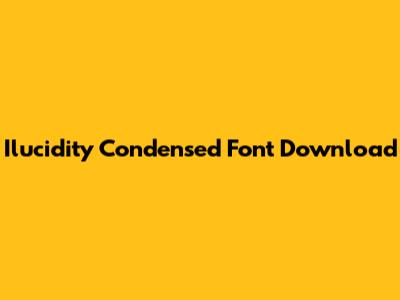
Download Ilucidity Condensed Font: A Sleek Typography Choice
What is Ilucidity Condensed?
Let’s start with the basics. Ilucidity Condensed is a typeface known for its narrow, streamlined design. It's a condensed version, meaning the letters are intentionally compressed horizontally, allowing you to fit more text into a smaller space without sacrificing readability. This makes it an excellent choice for headlines, captions, and other areas where space is at a premium. But what truly sets Ilucidity Condensed apart? It's the font's unique blend of modernity and elegance. The clean lines and minimalist design give it a contemporary feel, while subtle curves and carefully crafted letterforms add a touch of sophistication. This versatility makes it suitable for a wide range of projects, from corporate branding to editorial design.
Imagine you’re designing a sleek, minimalist website for a tech startup. Ilucidity Condensed could be the perfect font for your headings, providing a clean and modern look that aligns with the company's brand. Or perhaps you’re working on a magazine layout and need a font that can fit a lot of text into a narrow column. Ilucidity Condensed would be an ideal choice, allowing you to maintain readability without sacrificing space. Designers love Ilucidity Condensed because it plays well with others. It pairs beautifully with both serif and sans-serif fonts, giving you a lot of flexibility in your design choices. You can use it for headlines and pair it with a classic serif font like Times New Roman for body text, or you can combine it with a more modern sans-serif font like Open Sans for a cohesive and contemporary look. Whether you're a seasoned designer or just starting out, Ilucidity Condensed is a valuable addition to your font library. Its versatility, readability, and modern aesthetic make it a go-to choice for a wide range of projects. Plus, its condensed design can be a lifesaver when you're working with limited space. So, if you're looking for a font that can add a touch of sophistication and modernity to your designs, Ilucidity Condensed is definitely worth checking out.
Key Features and Design Aspects
Okay, so what are the nitty-gritty details that make Ilucidity Condensed stand out? Let’s break down some of its key features and design aspects. First off, the condensed nature of the font is a huge plus. This means you can pack more characters into a line without making the text look cramped or illegible. It’s a lifesaver when you’re dealing with tight spaces or trying to create a visually impactful headline. The font also boasts clean lines and a minimalist design. There aren’t a lot of unnecessary frills or embellishments. This simplicity gives it a modern and professional look, making it suitable for a wide range of applications. Whether you’re designing a corporate brochure, a website, or a mobile app, the clean lines of Ilucidity Condensed will help you create a polished and sophisticated design.
Another important aspect is its readability. Despite being condensed, Ilucidity Condensed maintains excellent readability, even at smaller sizes. This is due to the carefully crafted letterforms and the generous spacing between characters. You won’t have to worry about your audience straining their eyes to read your text. In terms of design, Ilucidity Condensed often features a slightly rounded terminal, giving it a softer and more approachable feel. This subtle detail can make a big difference in the overall look and feel of your design. It prevents the font from feeling too sterile or clinical, adding a touch of warmth and personality. The font also typically includes a variety of weights, from light to bold, giving you even more flexibility in your design choices. You can use the lighter weights for body text and the bolder weights for headlines, creating a clear visual hierarchy. This helps guide the reader's eye and makes your content more engaging.
Many versions of Ilucidity Condensed also come with a full set of glyphs and special characters, allowing you to create designs in multiple languages. This is a huge advantage if you’re working on international projects or need to support a diverse audience. The inclusion of special characters also opens up creative possibilities, allowing you to add unique visual elements to your designs. Let’s not forget about the overall aesthetic. Ilucidity Condensed has a contemporary and stylish look that’s perfect for brands that want to project a modern image. It’s a font that’s both functional and visually appealing, making it a popular choice among designers. Whether you’re designing a website, a logo, or a marketing campaign, Ilucidity Condensed can help you create a design that stands out from the crowd. So, if you’re looking for a font that’s condensed, clean, readable, and stylish, Ilucidity Condensed is definitely worth considering.
Tips for Using Ilucidity Condensed Effectively
Pairing Ilucidity Condensed with other fonts is another key consideration. As I mentioned earlier, it plays well with both serif and sans-serif fonts. For a classic and sophisticated look, try pairing it with a serif font like Times New Roman or Garamond. For a more modern and contemporary look, combine it with a sans-serif font like Open Sans or Helvetica. Experiment with different combinations to see what works best for your design. Pay attention to spacing and kerning. Because Ilucidity Condensed is a condensed font, it's important to make sure that the spacing between characters is just right. Adjust the kerning to ensure that the letters are evenly spaced and that the text is easy to read. Too little spacing can make the text look cramped, while too much spacing can make it look disjointed.
Use it sparingly. While Ilucidity Condensed is a versatile font, it's best not to overuse it. Using it for every element of your design can make it feel monotonous and overwhelming. Instead, use it strategically to highlight key elements and create visual interest. Experiment with different weights and styles. Ilucidity Condensed typically comes in a variety of weights, from light to bold, as well as different styles, such as italic and oblique. Experiment with these different options to see how they can enhance your design. Use the bolder weights for headlines and the lighter weights for body text. Use italics to add emphasis or to differentiate certain elements. Consider the overall tone and mood of your design. Ilucidity Condensed has a modern and sophisticated aesthetic, so it's best suited for designs that reflect that tone. If you're designing something that's meant to be fun and playful, you might want to choose a different font. But if you're designing something that's meant to be professional and stylish, Ilucidity Condensed is an excellent choice. By following these tips, you can use Ilucidity Condensed effectively to create stunning designs that stand out from the crowd. So go ahead and experiment, have fun, and see what you can create!
Ilucidity Condensed: Final Thoughts
In conclusion, Ilucidity Condensed is a fantastic font choice for designers looking to add a touch of modern elegance to their projects. Its condensed design, clean lines, and excellent readability make it a versatile option for headlines, body text, and more. Whether you're designing a website, a logo, or a marketing campaign, Ilucidity Condensed can help you create a design that's both stylish and functional. Just remember to download it from a reputable source, read the licensing terms carefully, and use it strategically in your designs. With a little bit of creativity and experimentation, you can unlock the full potential of Ilucidity Condensed and create designs that truly shine. So, what are you waiting for? Go download it and start designing!